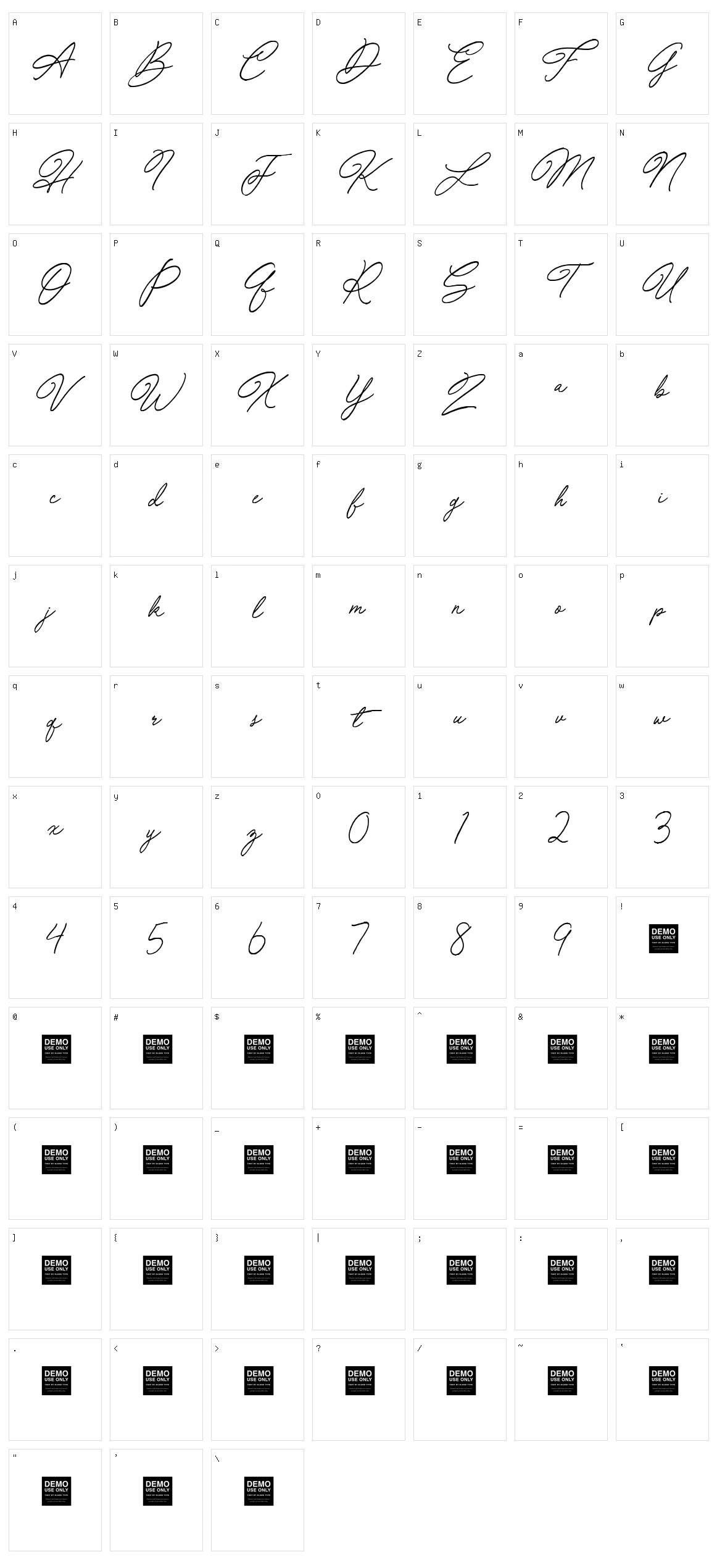
The free font Special Touch is carefully designed by BLKBK Fonts, showcasing a thoughtful balance of creativity and usability and falls under the Script font style. When you download the ZIP file, it contains only 63.42 KB of font files, making it lightweight and quick to download. Please review the license details below to understand permitted usage and distribution rights. If license information is not available, we recommend using this font for personal projects only or contacting the author directly for commercial usage permissions.